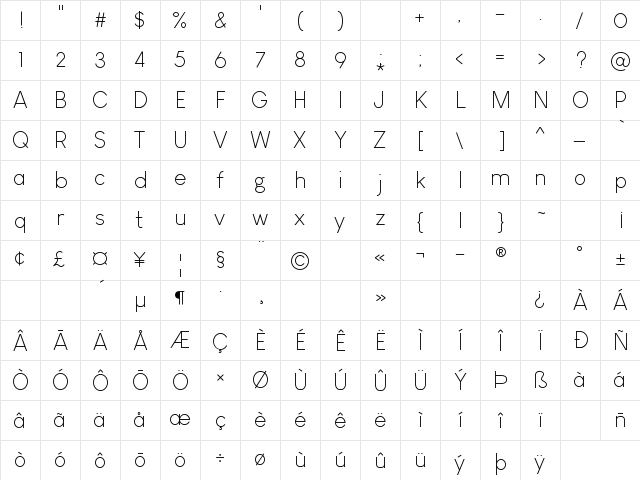
Louis George Cafe Light Regular
Designer: Yining Chen
Design Context for Louis George Cafe Light
Louis George Cafe Light is a composed and adaptable typeface that performs quietly and consistently across a wide range of design contexts. Its slender proportions lend an understated elegance to any composition.